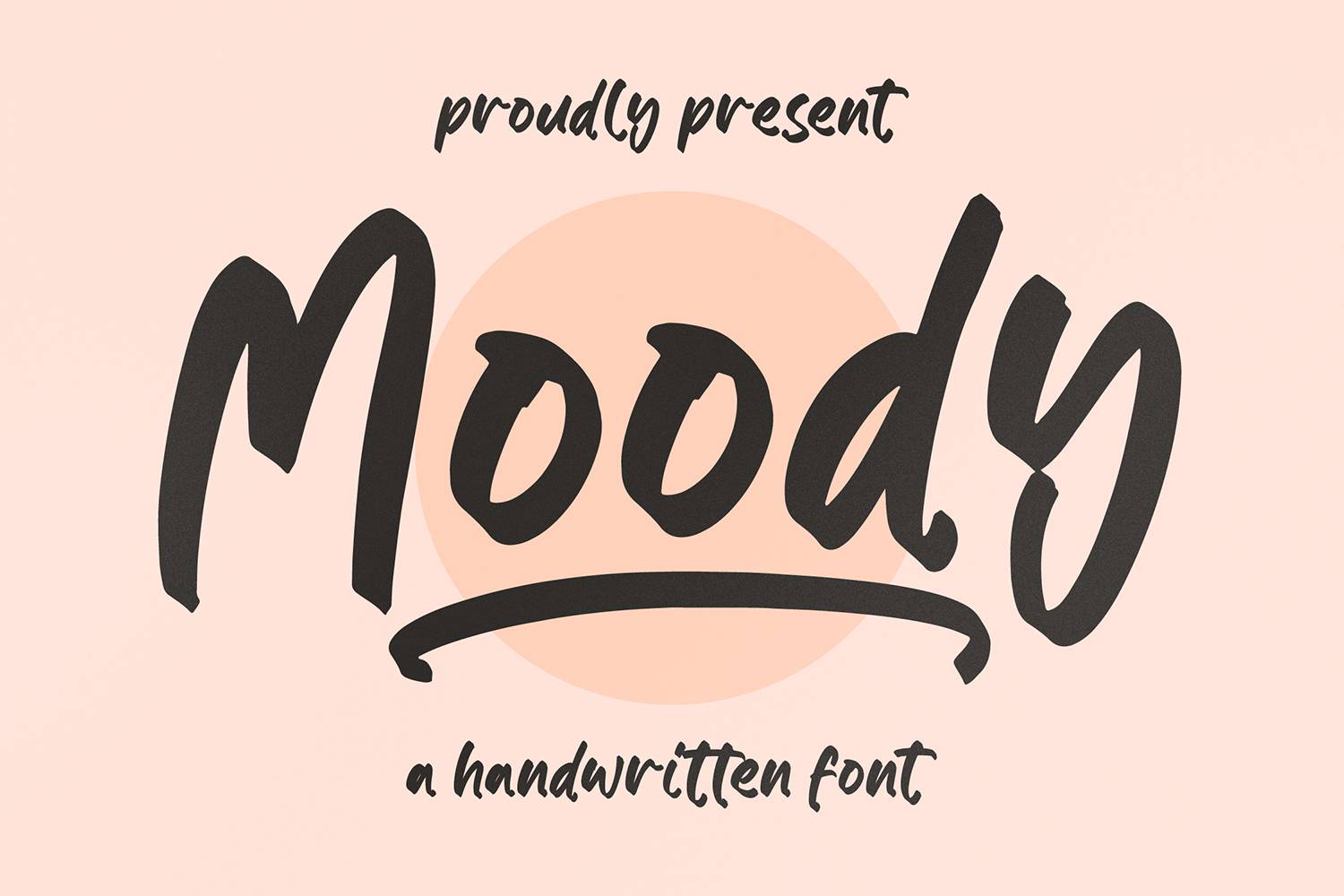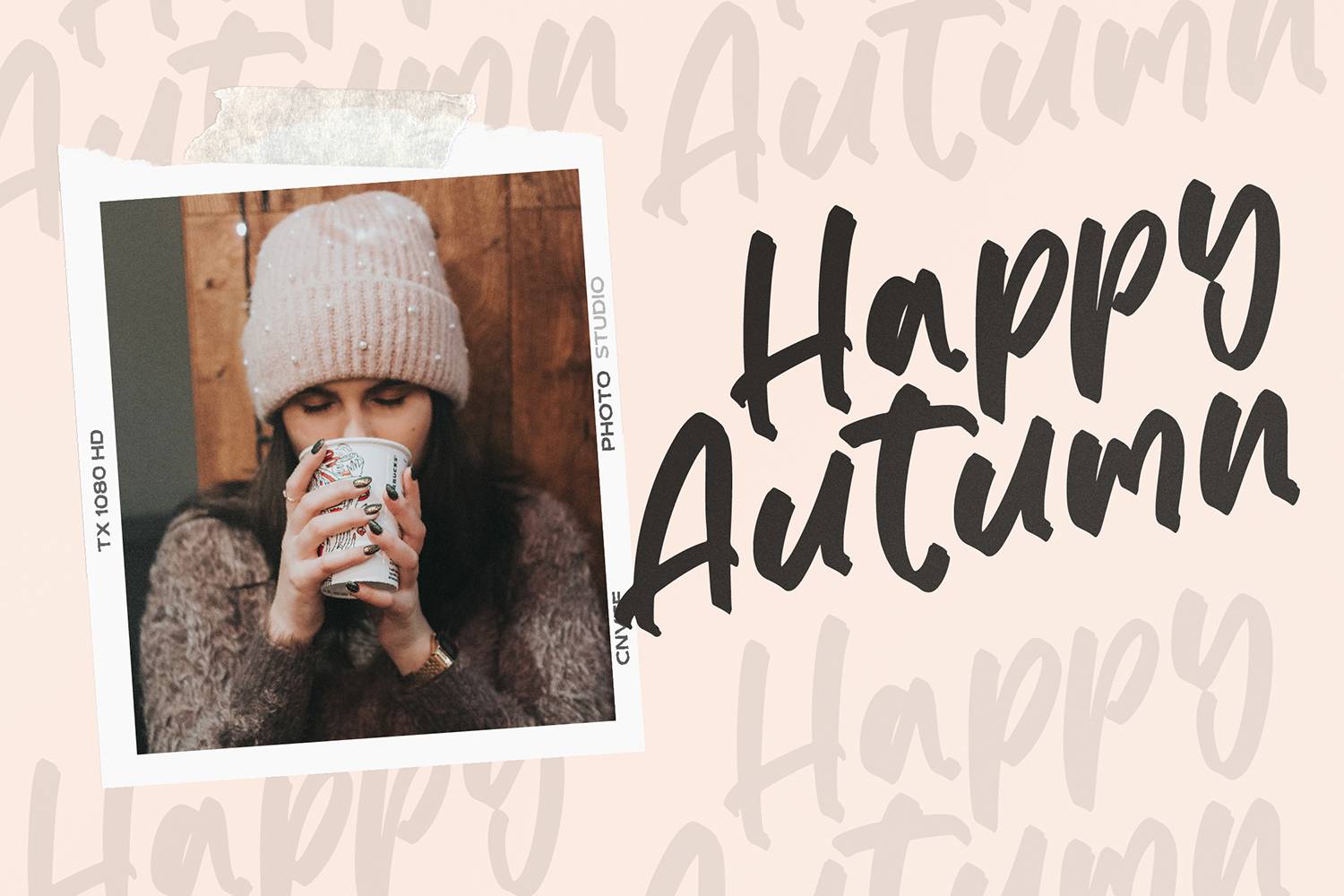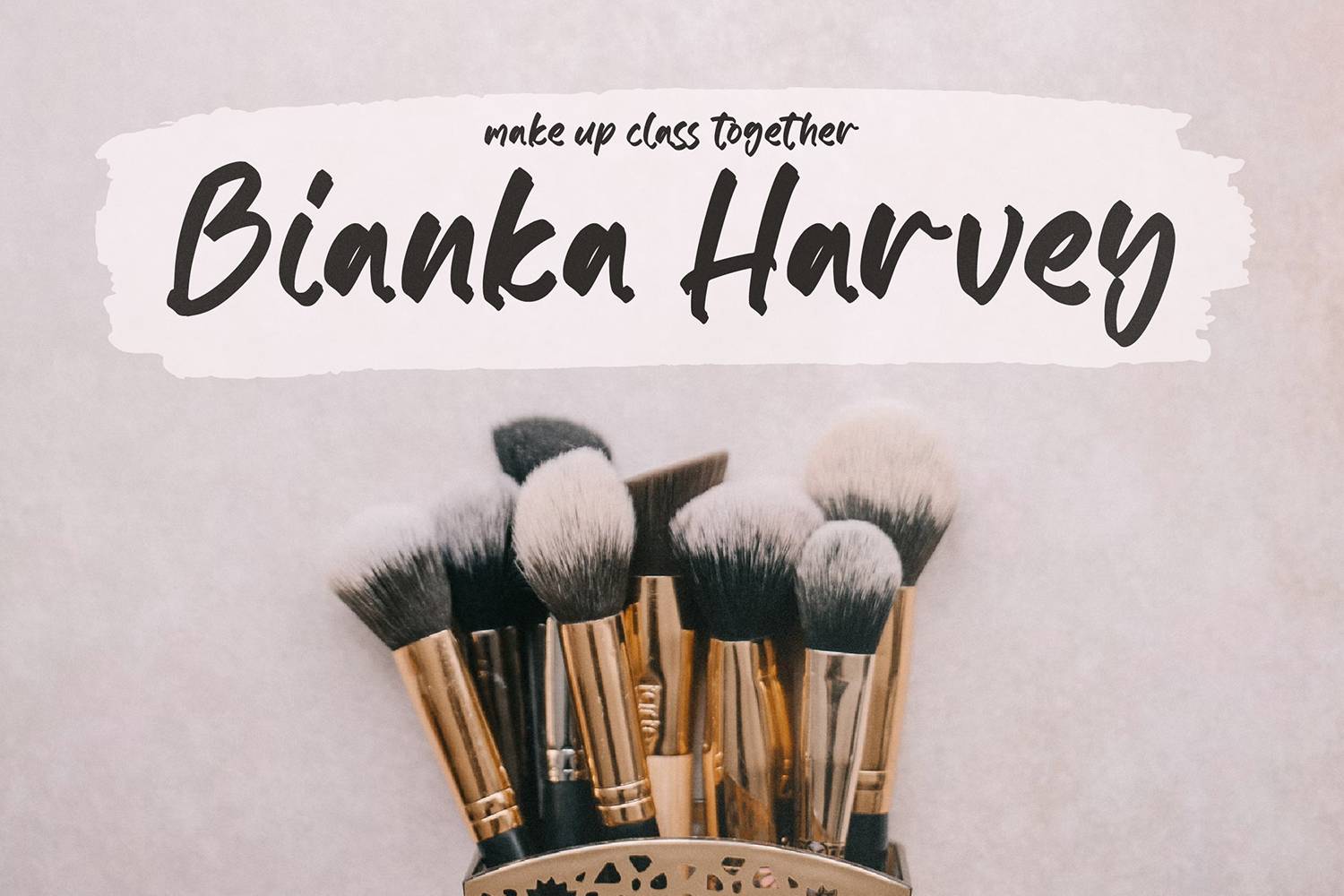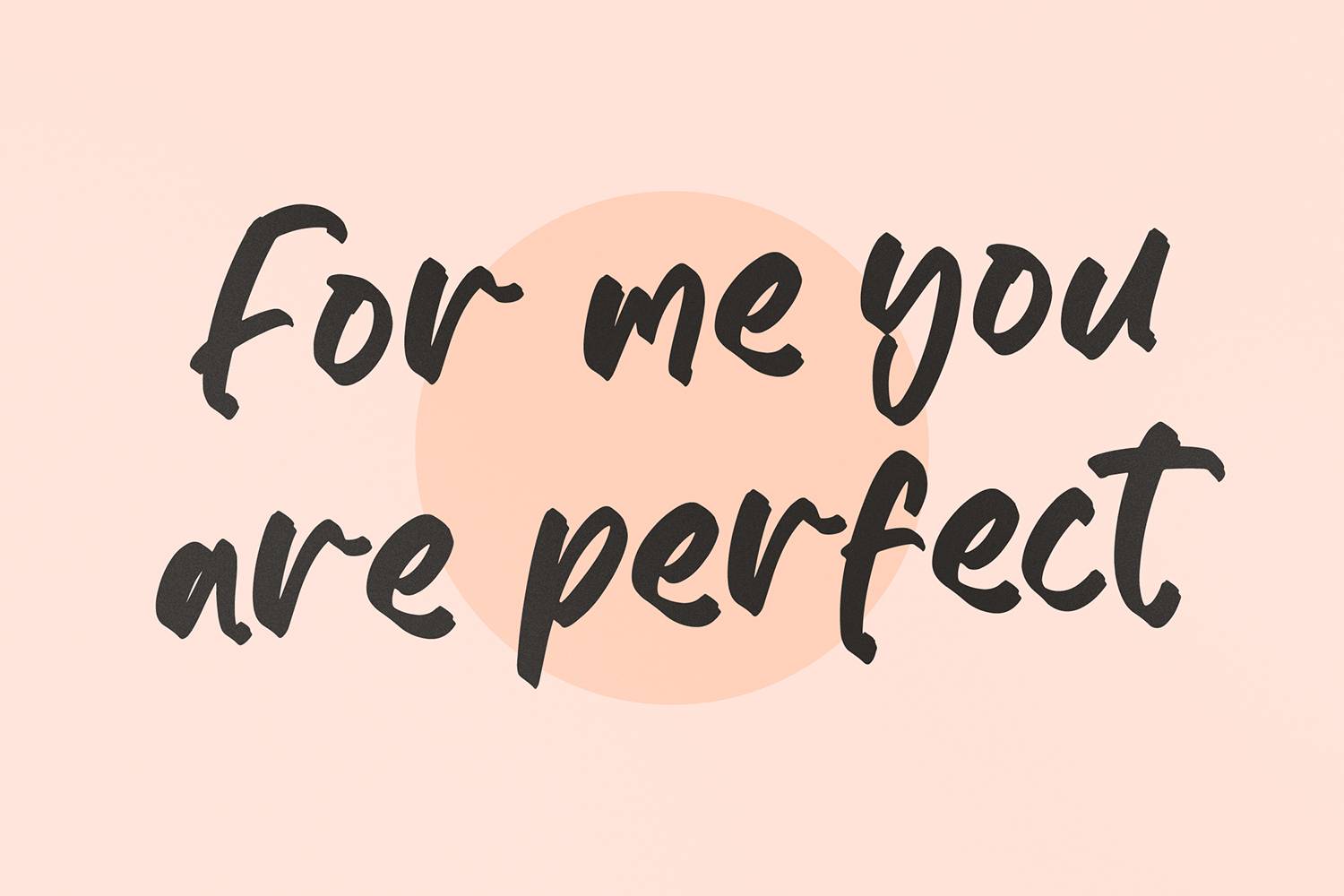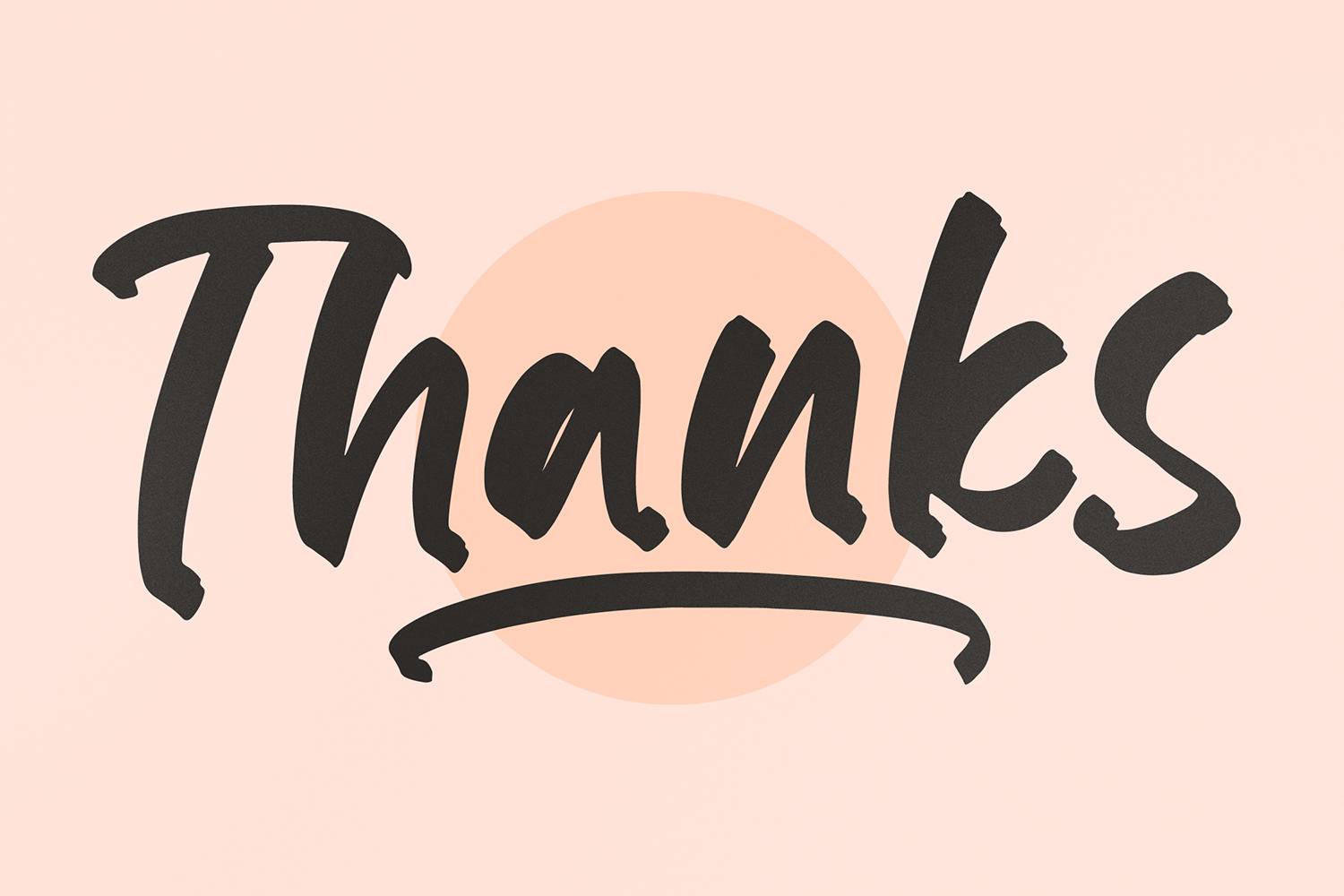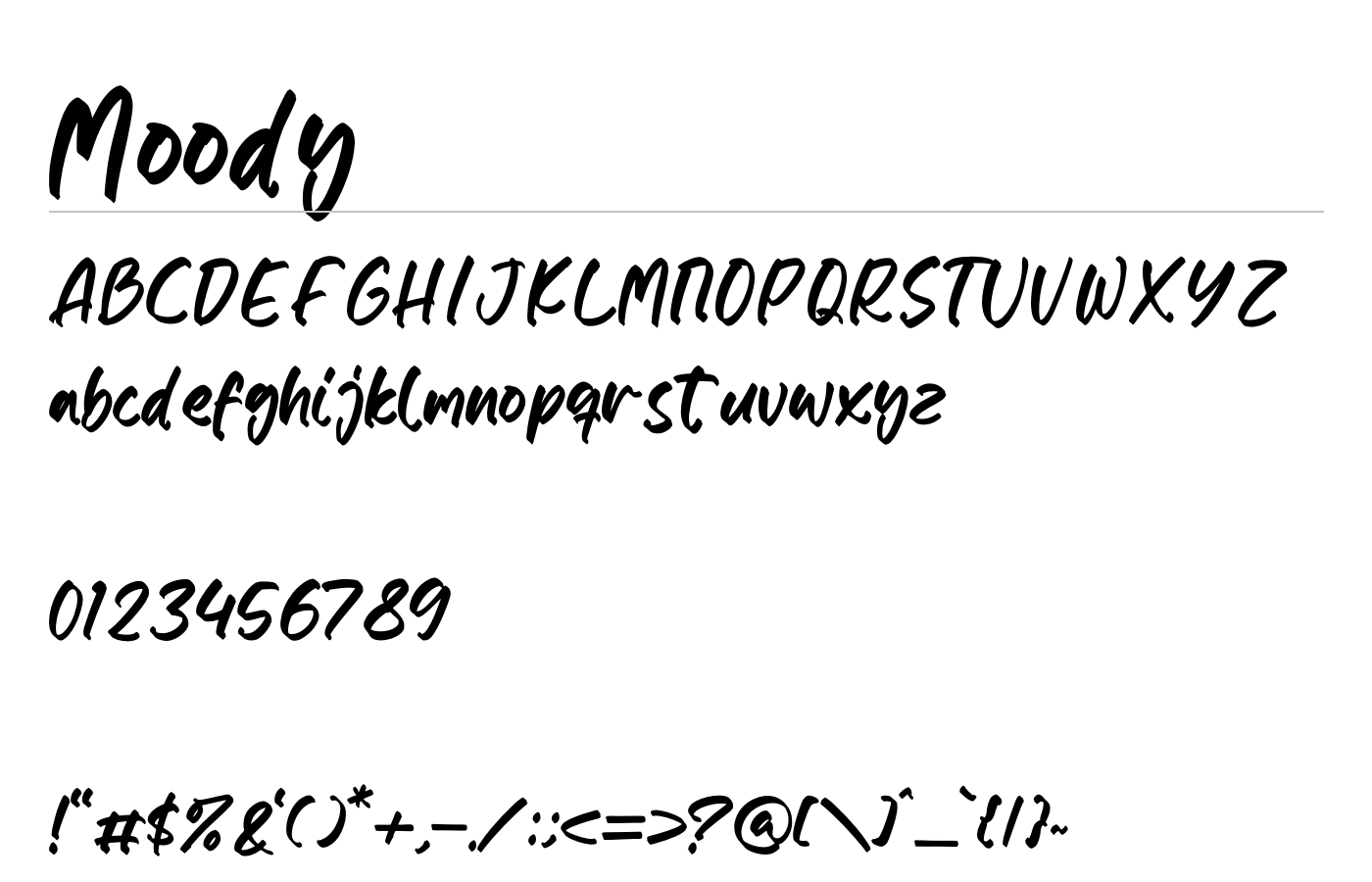
Moody is a lively and expressive handwritten script font with a bold, brush-like texture that gives it a casual yet confident character. Its slightly irregular strokes and fluid letterforms make it perfect for creative projects, branding, and headlines where a personal, dynamic touch is desired. This font works well for modern, stylish designs that want to convey authenticity and energy.
Moody Font
About Moody Font